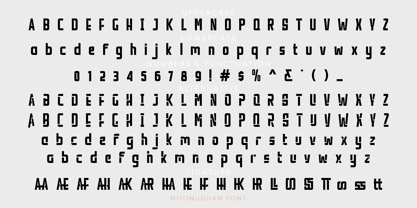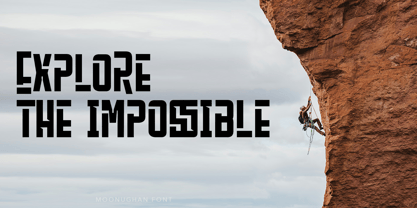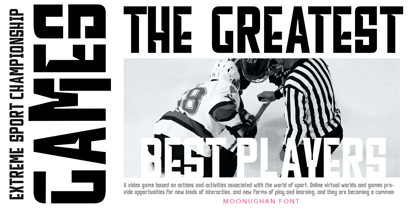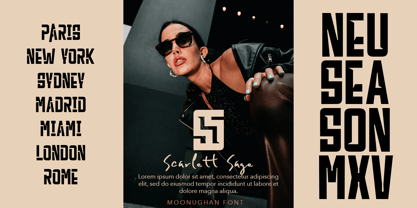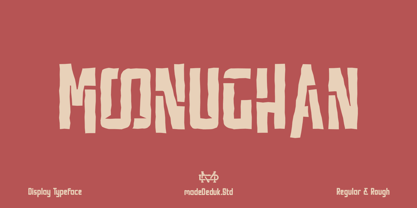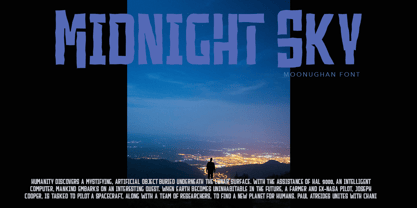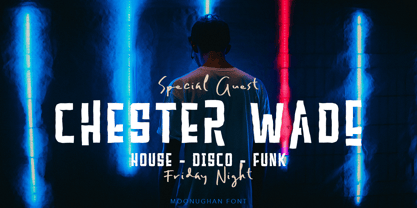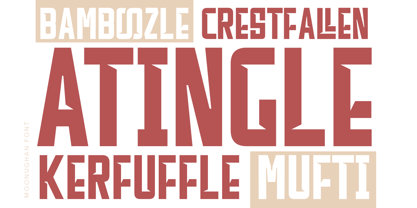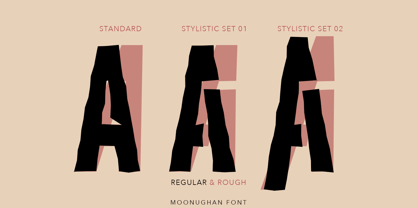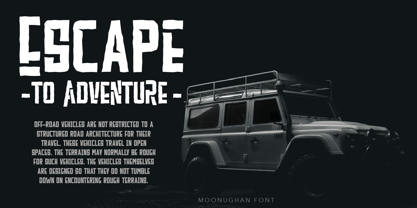
Moonughan
by madeDeduk
The Moonughan Font Family was designed by madededuk and published by madeDeduk. Moonughan contains 2 styles and family package options.
Introducing Moonughan display typeface, regular and rough packed with different ligatures and stylistic alternates making it easy to create unique characteristics to your projects. This font is the ultimate choice for creating stunning logos and headlines. Perfect for branding, posters, apparel, magazine, labels and much more.